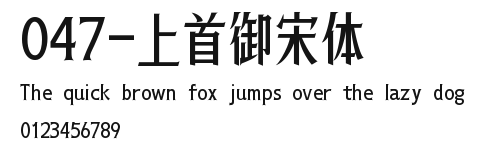
047-上首御宋体 Preview
• Font Name: 047-上首御宋体
• Full Font Name: 047-上首御宋体
About 047-上首御宋体.ttf
047-上首御宋体.ttf is a modern, elegant sans-serif font designed for ultimate readability and visual harmony. Perfect for branding, headlines, web design, and print materials.